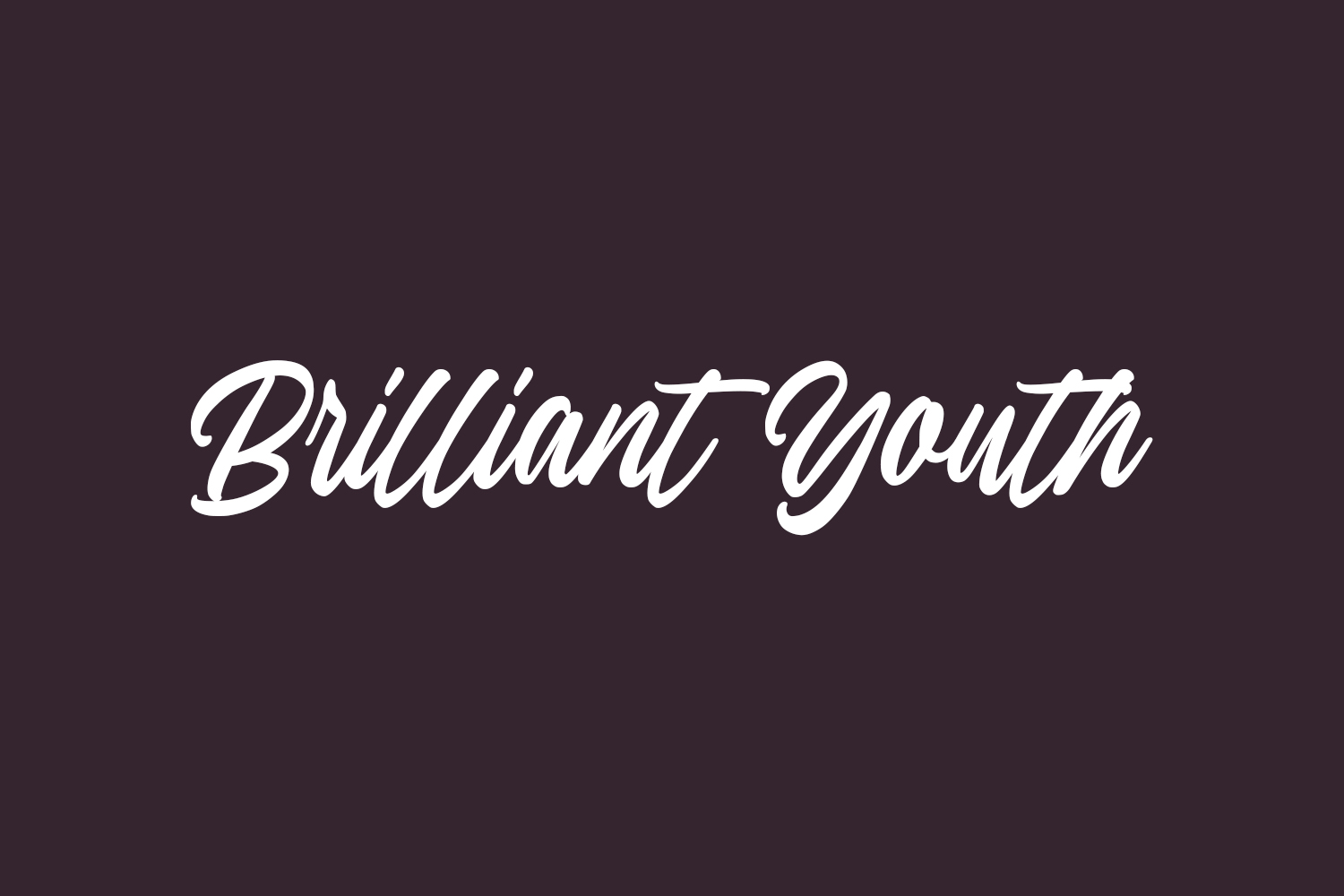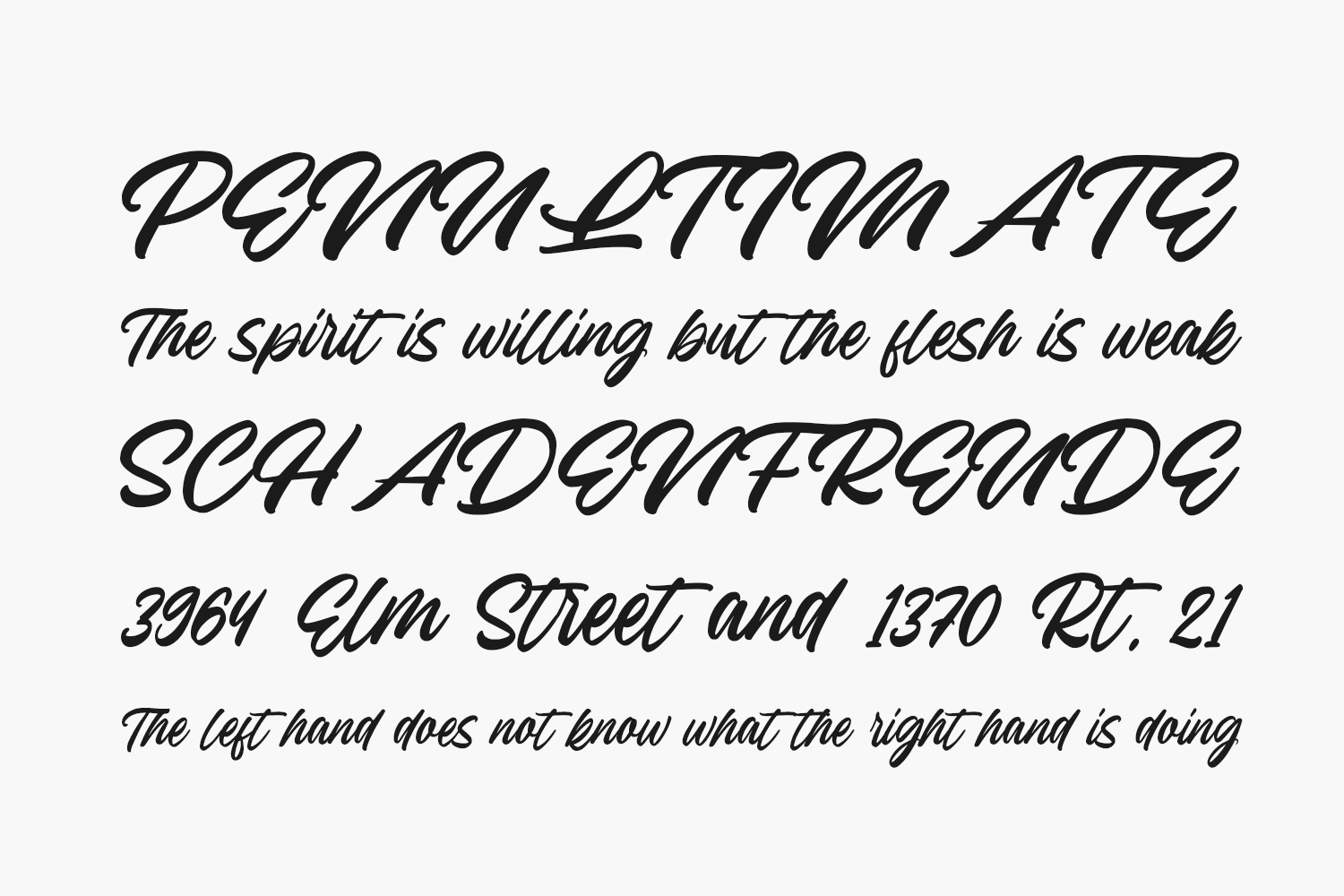
Brilliant Youth Free Font is a sophisticated script font with a touch of chic elegance. Featuring stylish ligatures and graceful glyphs, this font is the ultimate choice for projects seeking a contemporary and refined aesthetic. Elevate your designs with Brilliant Youth for a truly polished finish. Download the font for free if you need it for personal use or purchase the full version for commercial use.
Designed by Damarletter